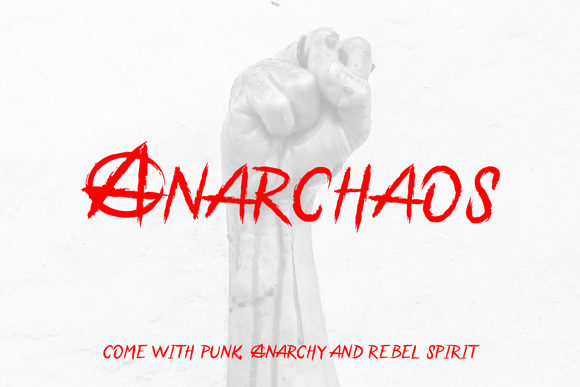
Get ready to unleash the chaotic energy and bold style of Anarchaos, the ultimate display font designed to add an explosive touch to your racing video projects. Anarchaos is not just a font; it's a rebellious spirit captured in digital form, ready to elevate your videos to dizzying heights. Crafted by the visionary minds at anomali.bisu, Anarchaos is a game-changer, a font that shatters the boundaries of conventional design.
With its anarchic and bold nature, Anarchaos commands attention, demanding to be seen and felt. Its sharp angles and dynamic strokes create a sense of fast-paced energy, perfectly mirroring the adrenaline-pumping action of racing videos. Whether you're showcasing heart-stopping car chases or exhilarating motorbike stunts, Anarchaos will amplify the intensity and leave your audience breathless.
But Anarchaos is more than just a visual spectacle; it's a versatile chameleon, adapting effortlessly to various racing sub-genres. From sleek and futuristic Formula One races to gritty and raw off-road competitions, Anarchaos seamlessly blends in, enhancing the unique atmosphere of each video. Let your creativity run wild, knowing that Anarchaos will faithfully translate your vision into a mesmerizing visual experience.